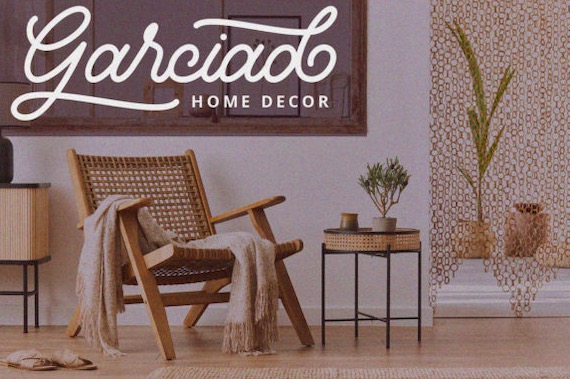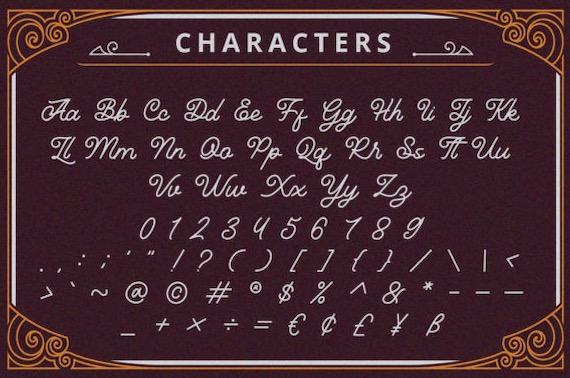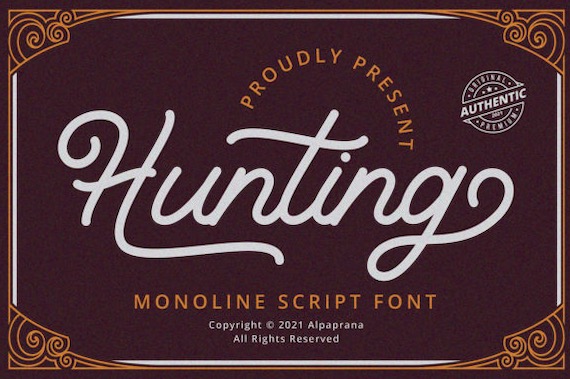
Hunting Font is an elegant and modern beautiful handwritten script typeface that was created and shared by alpapranastudio. It also has a luxury spark and a unique feel in every stroke.
Hunting Handwritten Monoline Font